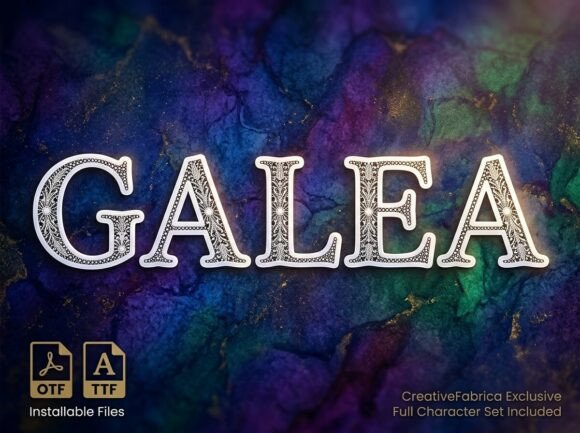
Galea: Commanding Attention with a Decorative Display Font
Understanding the Power of an Uppercase-Only Typeface
In the world of digital design, choosing the right typeface is often the deciding factor between a project that blends in and one that stands out. Galea enters the market as a premium font option that rejects the ordinary. It is not just a set of letters; it is a collection of artistic statements. Designed specifically as a decorative display font, Galea is engineered to be the visual anchor of your layout. When you first encounter this typeface, you will notice its strong visual personality and unique artistic elements. It commands the space it occupies, making it an ideal choice for creators who want to break away from the noise of standard sans serif font choices.
It is crucial to understand the nature of this tool before integrating it into your workflow. Galea is an all-caps display typeface. This means it does not include lowercase letters. While some might see this as a limitation, experienced designers know that uppercase-only fonts excel in specific, high-impact areas. These letters are designed to sit side-by-side with consistent height and weight, creating a solid block of visual texture. This makes Galea perfect for headlines, logos, and decorative initials where every character needs to function as a piece of art. It is not designed for long-form body text, but rather for the moments where you need to grab a viewer’s attention instantly.
Visual Characteristics and Brand Personality
When evaluating a creative font, the "vibe" it projects is just as important as its legibility. Galea strikes a balance between artistic flair and professional polish. It avoids the chaotic look of some grunge fonts while steering clear of the blandness of corporate typefaces. The design features unique curves and strokes that suggest a modern, confident, and slightly edgy personality.
For brand identity work, this font communicates authority and creativity. If you are building a brand for a fashion label, a high-end boutique, or a creative agency, Galea provides the visual weight needed to establish trust while remaining visually interesting. It suggests that the brand behind it values aesthetics and is not afraid to be bold. Unlike a standard serif font that might feel traditional or academic, Galea feels contemporary and dynamic. It is a typeface that speaks to innovation and style, making it a valuable asset for anyone looking to project a polished yet daring image.
Practical Applications: Where Galea Shines
The versatility of Galea lies in its ability to adapt to various creative contexts while maintaining its core identity. Here is how you can apply this font across different mediums:
- Logo Design and Branding: Because the letterforms are distinct and bold, Galea makes for a memorable logomark. It works exceptionally well for wordmarks where the name of the business needs to carry the visual weight without the need for an accompanying icon.
- Packaging Design: On a shelf, packaging needs to scream for attention. Galea is perfect for the front label of products, whether it is a bottle of artisanal sauce or a box of luxury candles. The all-caps style ensures the product name is readable from a distance.
- Editorial and Web Design: In digital spaces, headings are crucial for breaking up content. Using Galea for H1 or H2 tags on a blog or website creates a strong visual hierarchy. It draws the reader in and signals that the content below is worth reading.
- Social Media Graphics: Platforms like Instagram and Pinterest are highly visual. A bold display font is essential for stopping the scroll. Galea allows you to create impactful quotes, announcements, and sale graphics that look professional and cohesive.
Integrating Galea into Your Design Workflow
Adding a new premium font to your library requires a strategy. To get the most out of Galea, you need to consider how it interacts with other design assets. Here are some practical tips for implementation:
Mastering Font Pairing
Since Galea is a loud, decorative display font, it requires a partner that knows how to step back. A common mistake is pairing a bold font with another stylistic font, which creates visual chaos. Instead, pair Galea with a clean, neutral sans serif font or a simple serif font for your body text. For example, using a light-weight sans serif like Montserrat or a classic serif like Garamond for your paragraphs will allow Galea’s headers to pop without overwhelming the reader. This contrast creates a balanced visual hierarchy that guides the eye naturally through the page.
Ensuring Readability and Hierarchy
Because Galea is an all-caps typeface, spacing (kerning and tracking) becomes vital. All-caps text can sometimes feel cramped if the letters are too close together. When setting headlines in Galea, experiment with increasing the tracking slightly. This adds breathing room between the characters, enhancing legibility and giving the text a more luxurious, airy feel. Remember, this font is designed for high-impact moments, so give it the space it deserves to shine.
It is particularly well-suited for entrepreneurs and small business owners who need to establish a strong brand presence quickly. By using a high-quality display font, you immediately elevate the perceived value of your product or service. It signals to your audience that you care about the details. Whether you are designing a flyer for a local event, creating a header for your newsletter, or launching a new product line, Galea offers the visual punch needed to make a lasting impression. It is more than just a font; it is a tool for visual storytelling.